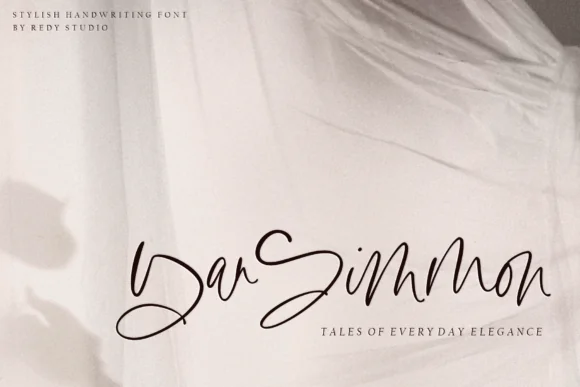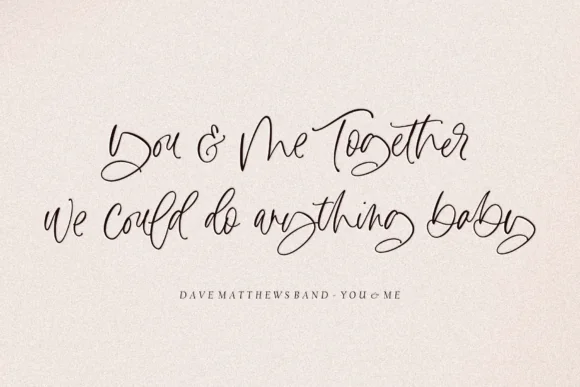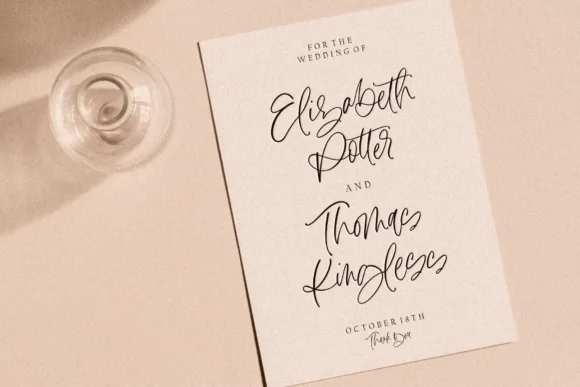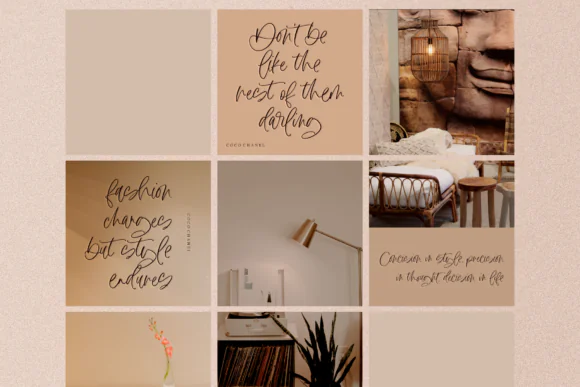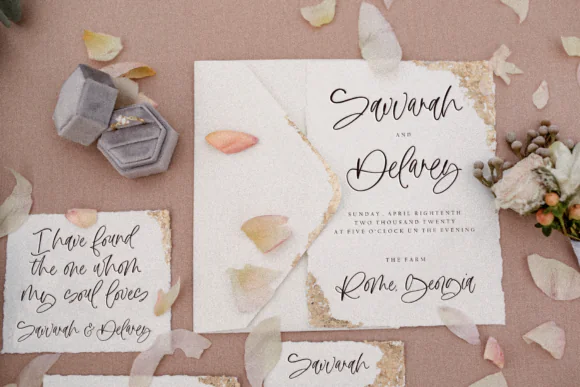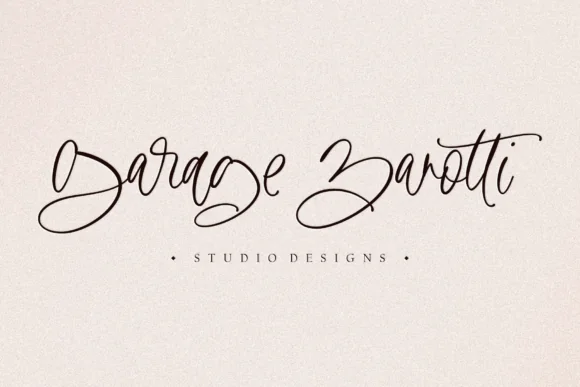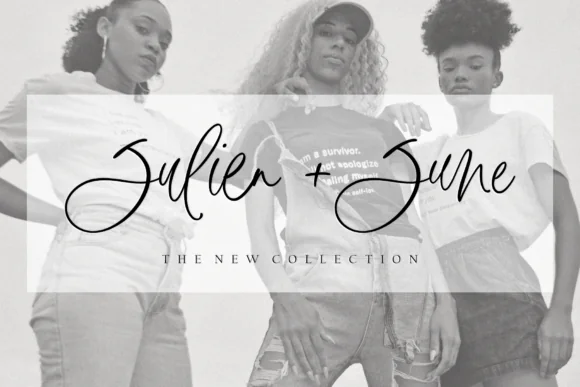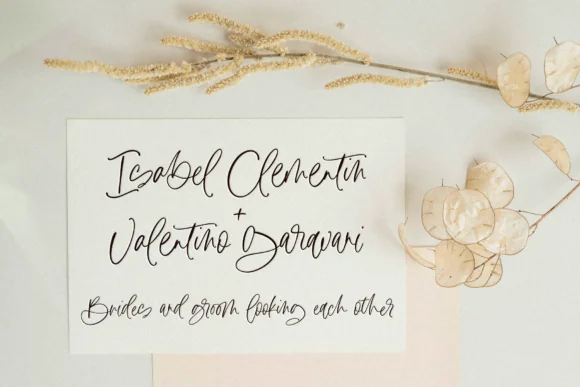
Add a graceful, personal, and enchanting handwritten touch to your creative projects with Diary Writing Font, a versatile script typeface designed for beautiful everyday designs. With its smooth handwritten flow and charming script style, this font is perfect for projects that need warmth, elegance, and a natural hand-drawn feel.
Diary Writing works beautifully across a wide range of creative uses, from greeting cards and headlines to invitations, journals, branding materials, social media graphics, packaging, labels, stickers, printable wall art, and personal stationery. Its handwritten style gives your text a soft, expressive, and artistic look, making it ideal for both digital and printed projects.
This font is also PUA encoded, which means you can easily access its glyphs and swashes to create more decorative, customized, and stylish typography. Whether you are designing a romantic invitation, a diary-style quote, a feminine brand logo, or an elegant greeting card, Diary Writing helps turn simple words into beautiful handwritten artwork.